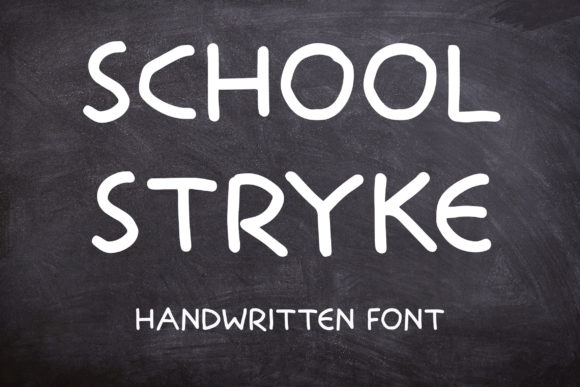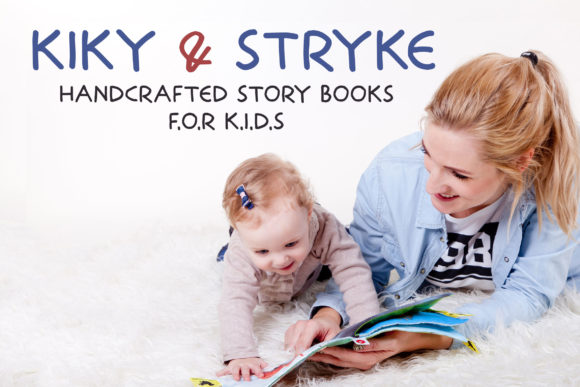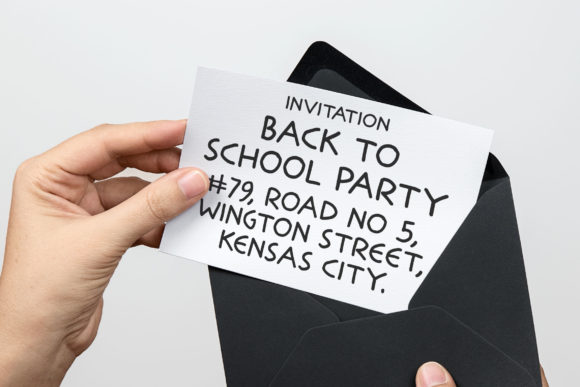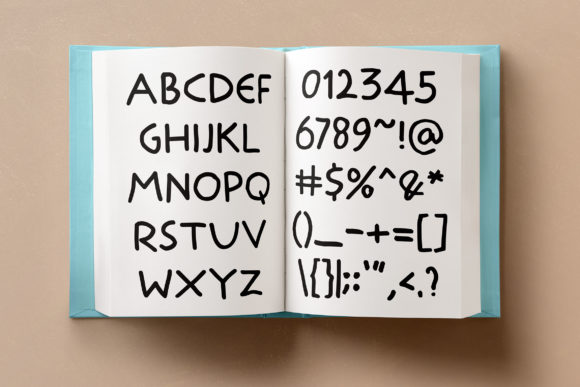
School Stryke Font
About School Stryke Font
School Stryke is a sweet and quirky handwritten font. Add this font to your kids or school projects and notice how it lightens them up!